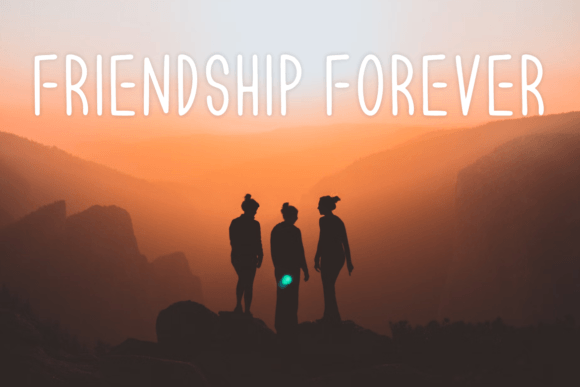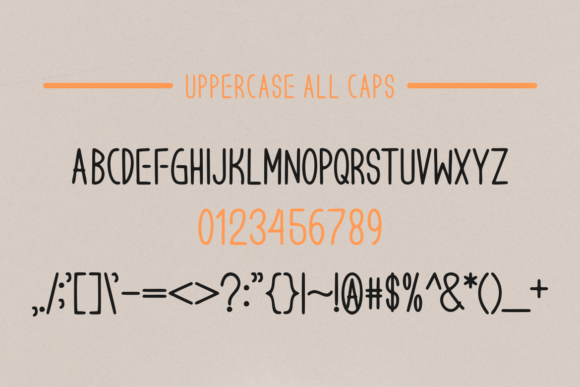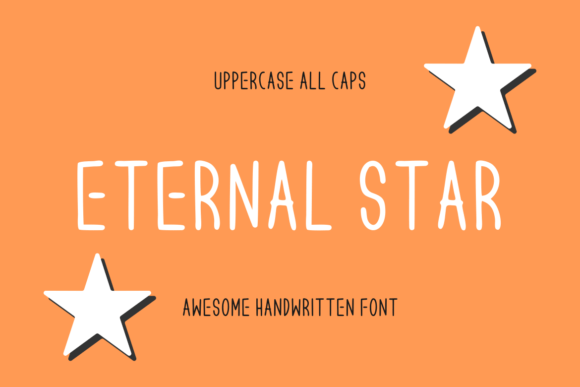
Introduction to Eternalstar Font
**EternalStar Font** – Modern Font is a bold and authentic display font.
👤 Author kalingga.albert
The font is suitable for any branding project like logo, t-shirt printing, esports, and many more outstanding in a wide range of contexts.
Why Choose Eternalstar Font?